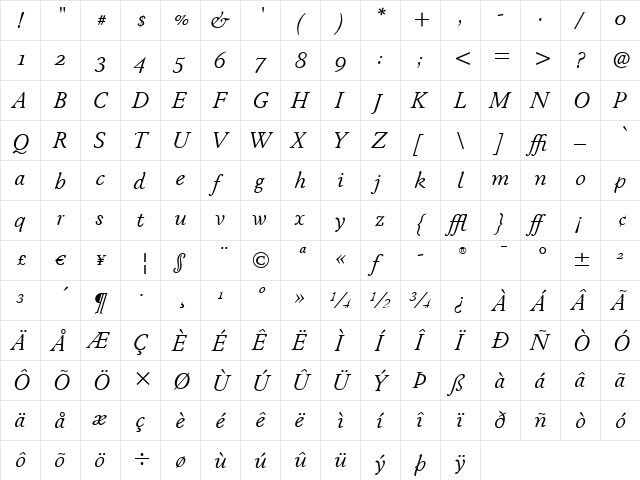
Winchester New ITC Book Italic Font Preview
Winchester New ITC Book Italic
Design Context for Winchester New ITC Typeface
Winchester New ITC offers clean, dependable letterforms without strong stylistic allegiance, making it a practical choice for designers who need flexibility. The dynamic lean of this cut emphasises speed and emphasis in any layout.
Pro Tip: Try Winchester New ITC for annotation and caption copy alongside an upright companion — the contrast in angle creates a dynamic but ordered typographic system.